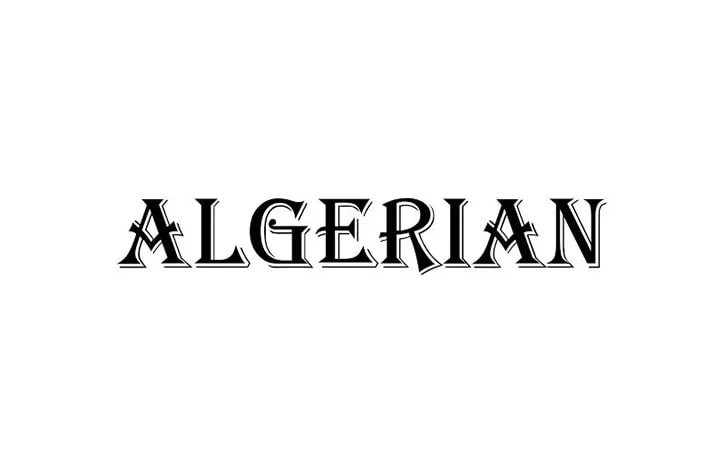
Algerian Font is a decorative serif digital font family that has a multilayered font collection. You may have seen them unreasonably in various printing projects.
Originally produced in the early 20th century by the British foundry Stephenson, Black & Company. The typeface design is the property of Linotype, while the name ‘Algerian’ is a trademark of International Typeface Corporation.
Since 1988, the Algerian font has made many screen appearances. A version of the Algerian font provided in 1993 called URW is said to be a widely used font and is the default font for Microsoft Office.
A few years later, they also created lowercase letters to originate Algiers Mesa, an Algerian font. As of 2017, the font family has grown to 144 styles. In 2020, Fontmesa came out with 2 other weights including black and extra bold.
Font Name: | Algerian Font Family |
Style: | Serif, Decorative, Typeface |
Font Designer: | Philip Kelly, Alan Meeks |